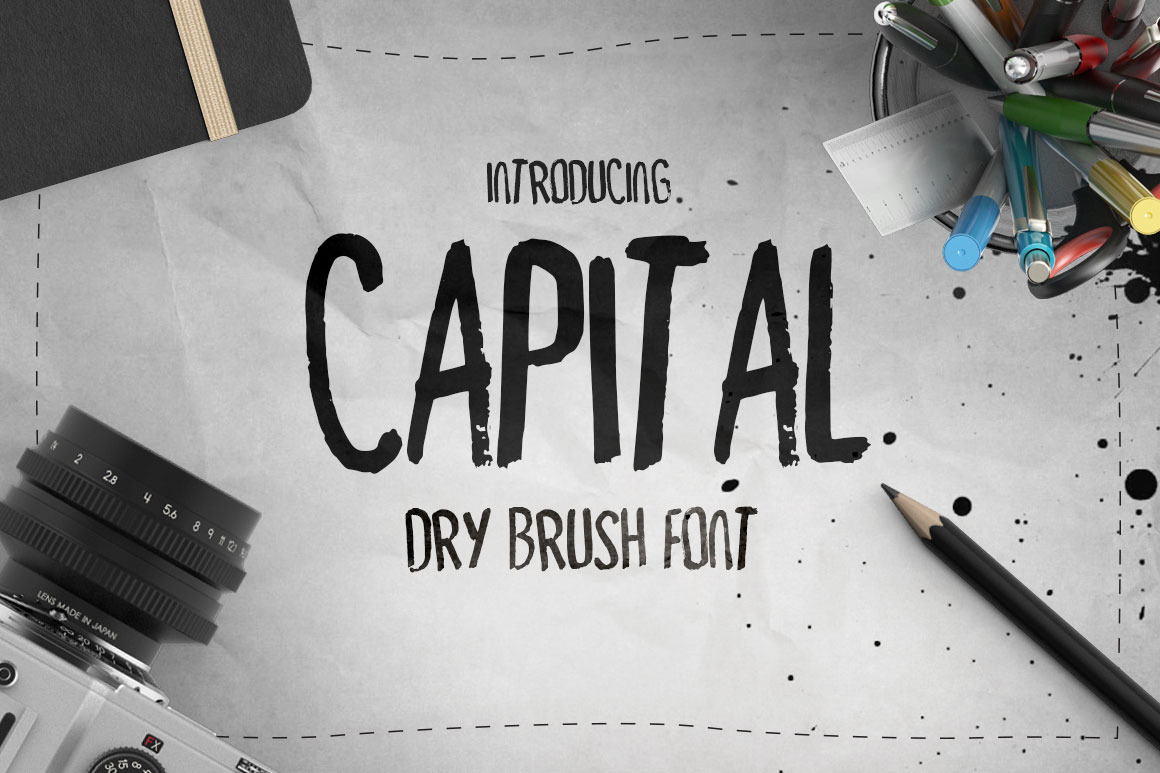
Capital Dry Brush Font
Introducing Capital Dry Brush Font. This font is perfect for titles, logos and badges. This font was created by hand using a dry permanent marker.